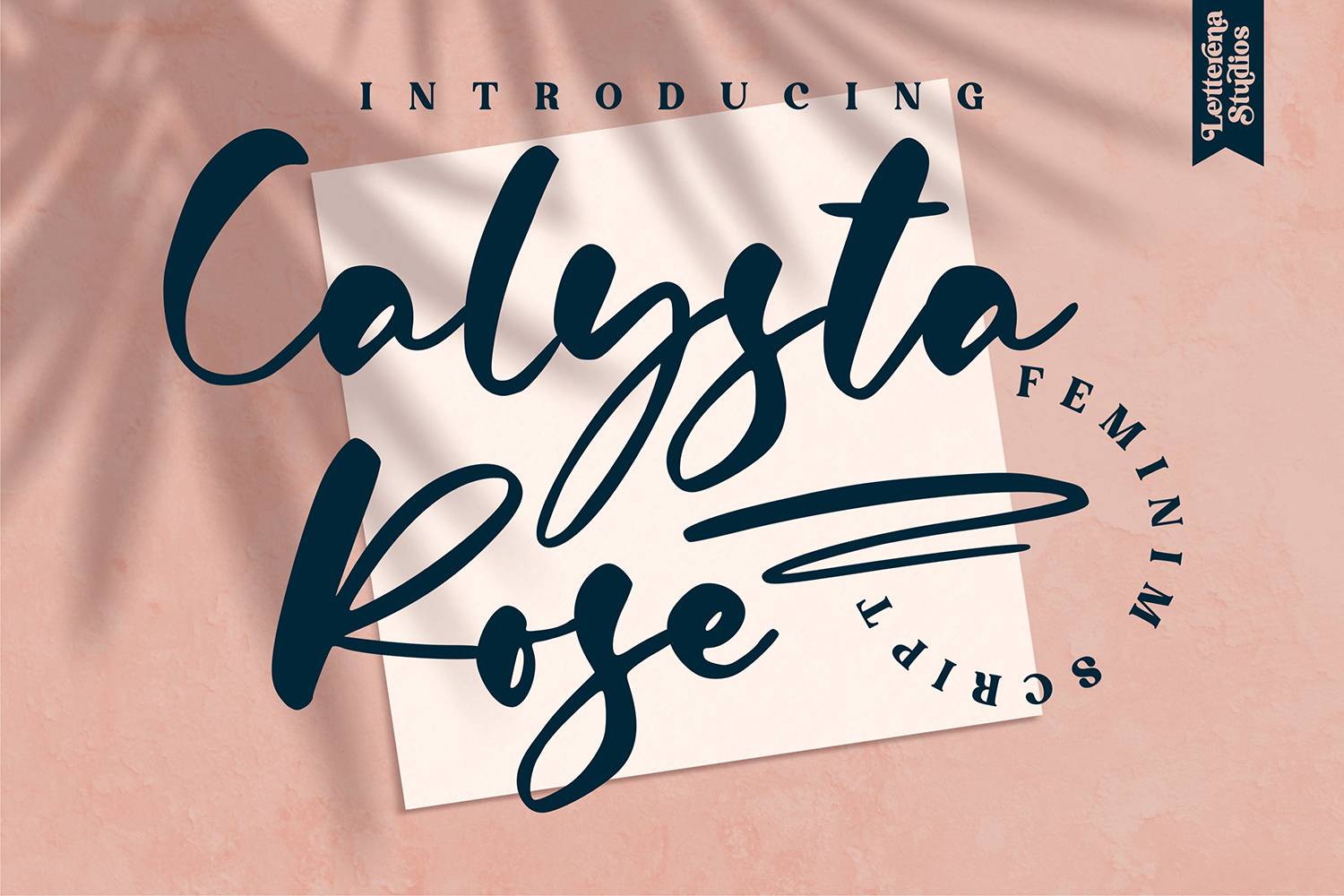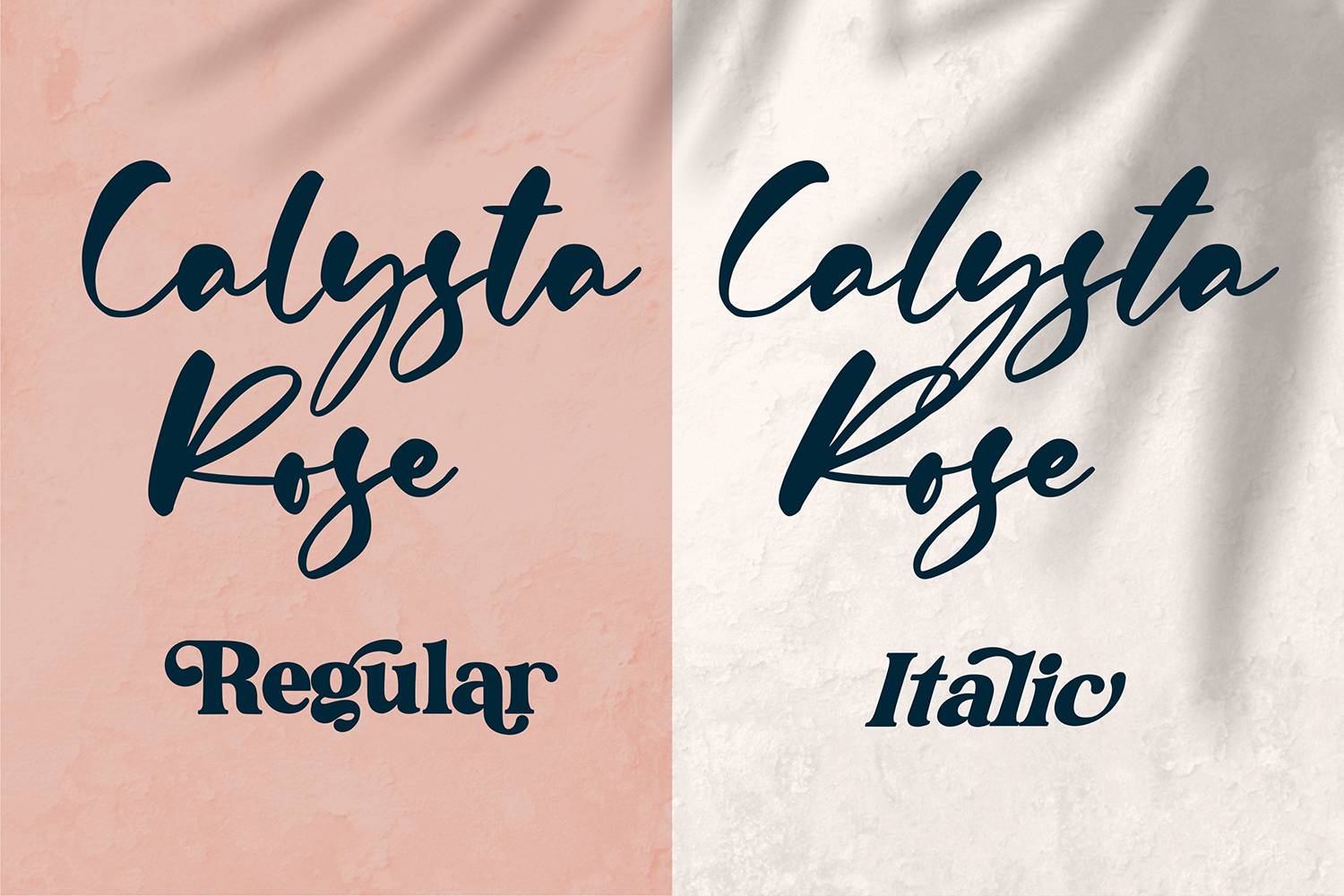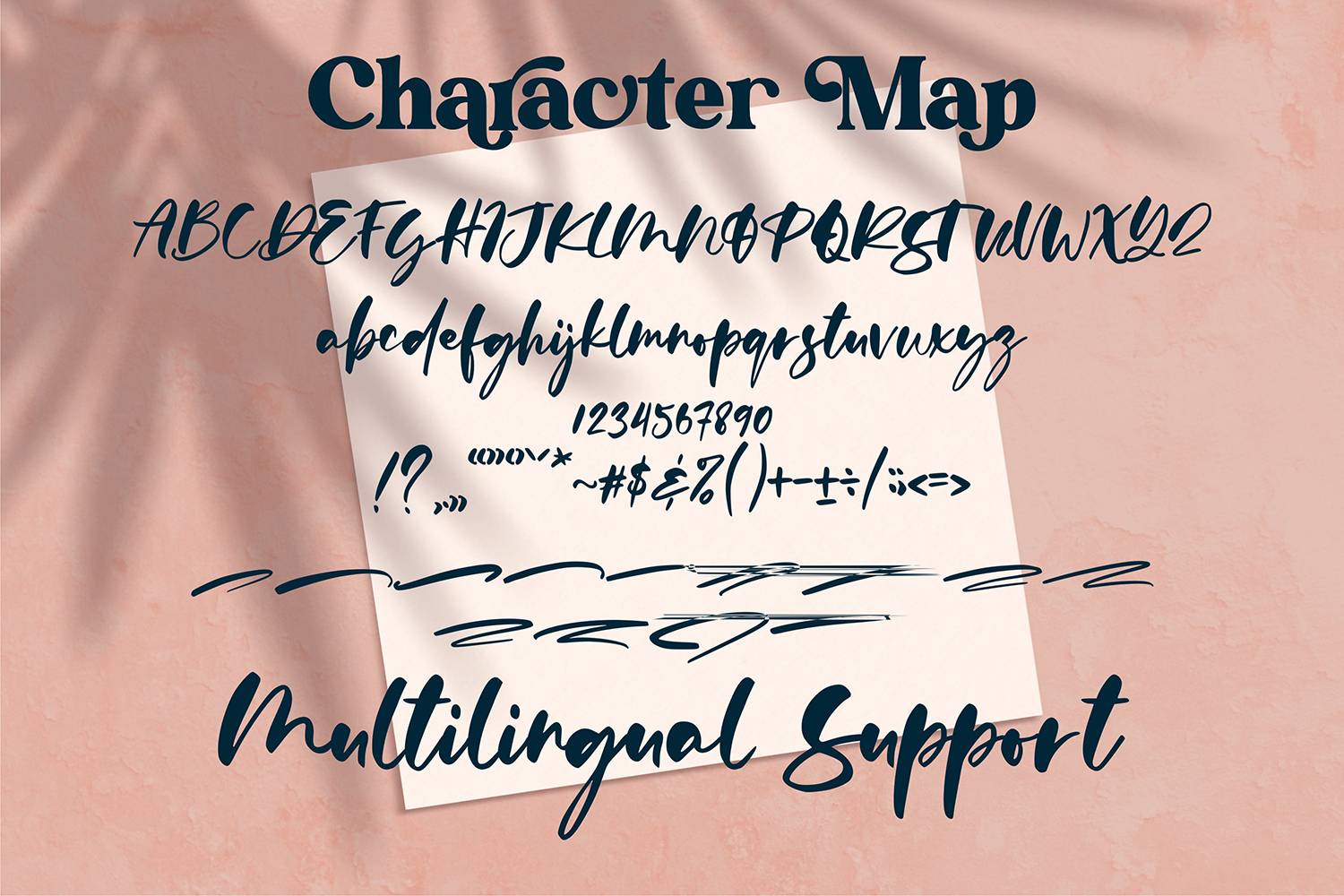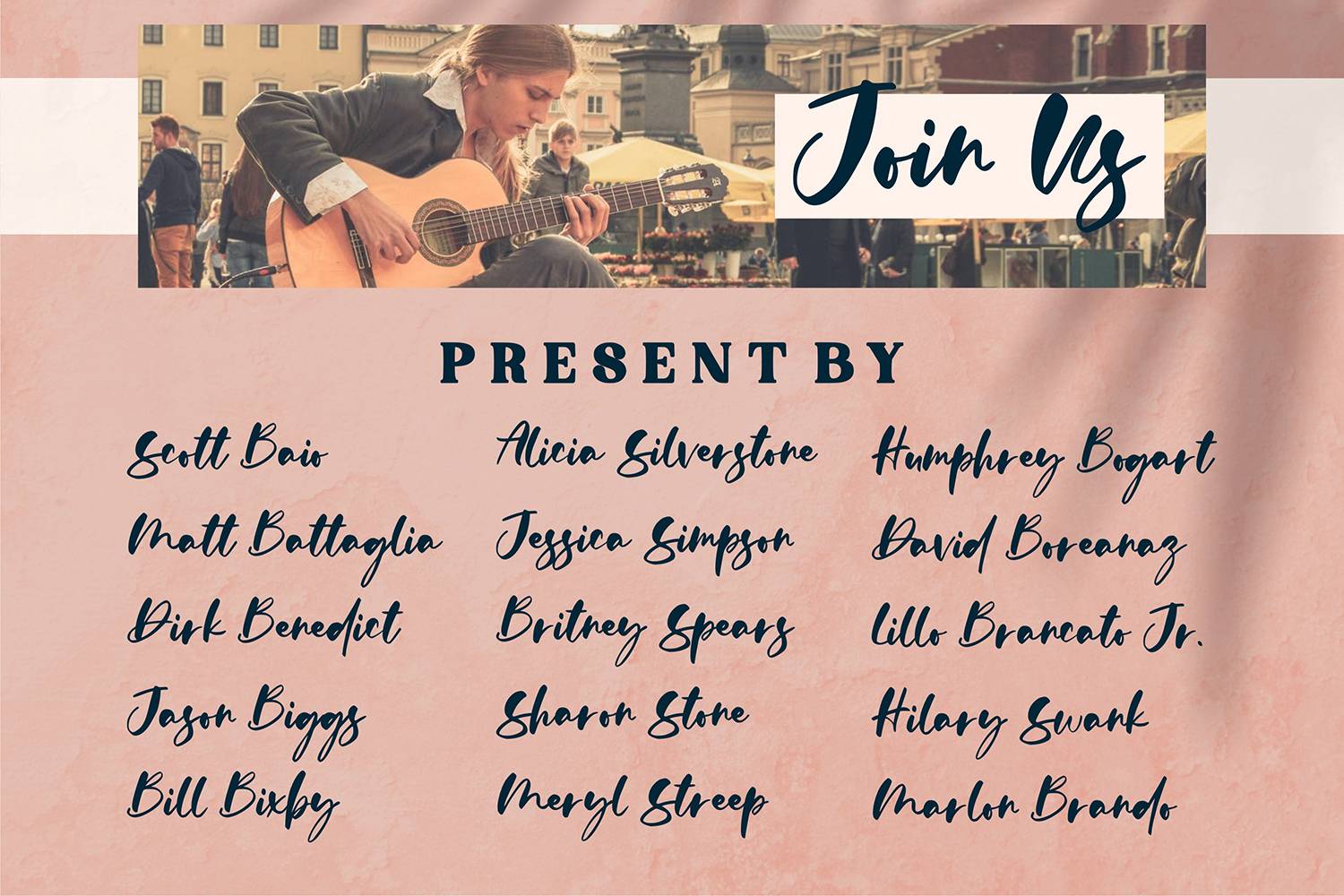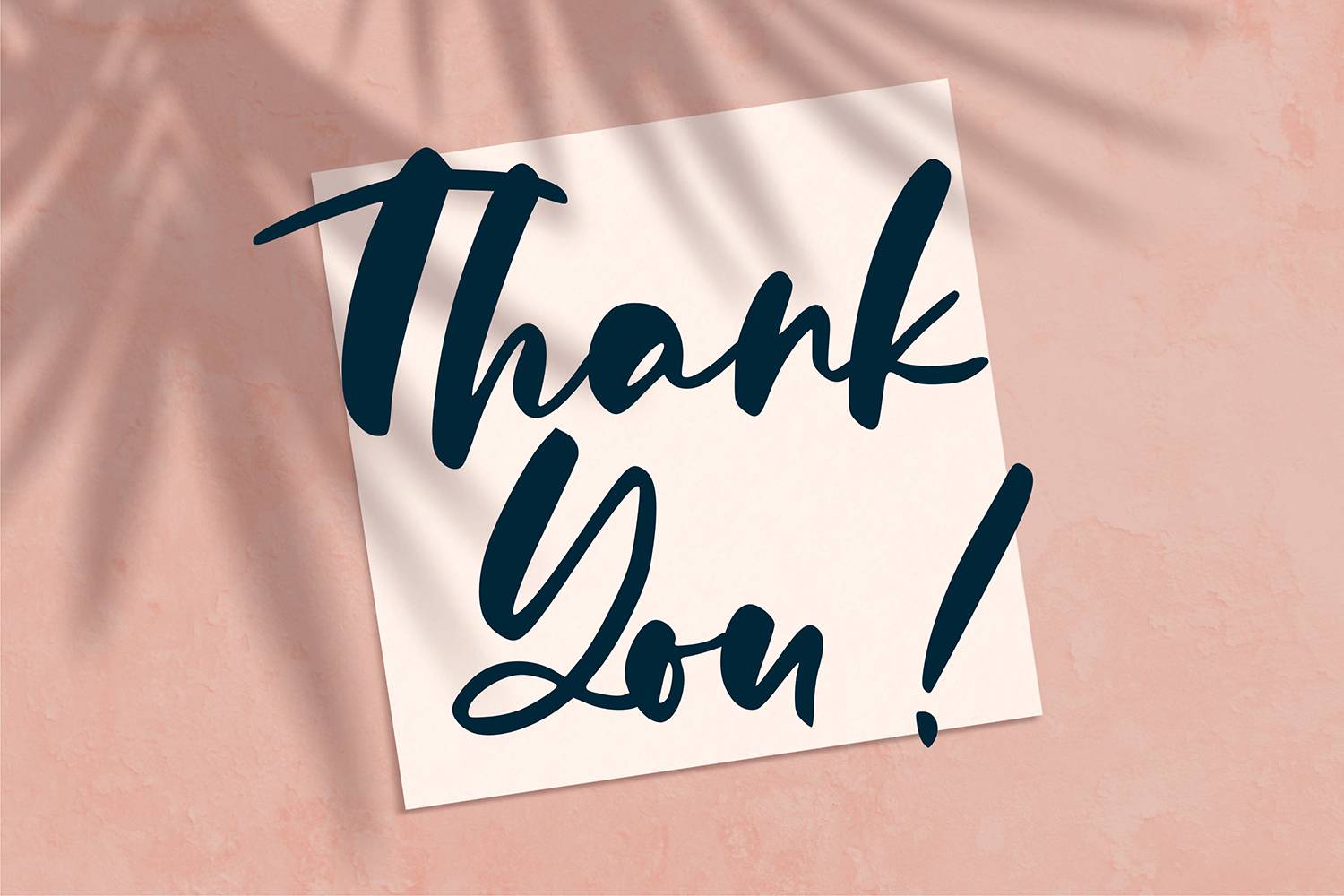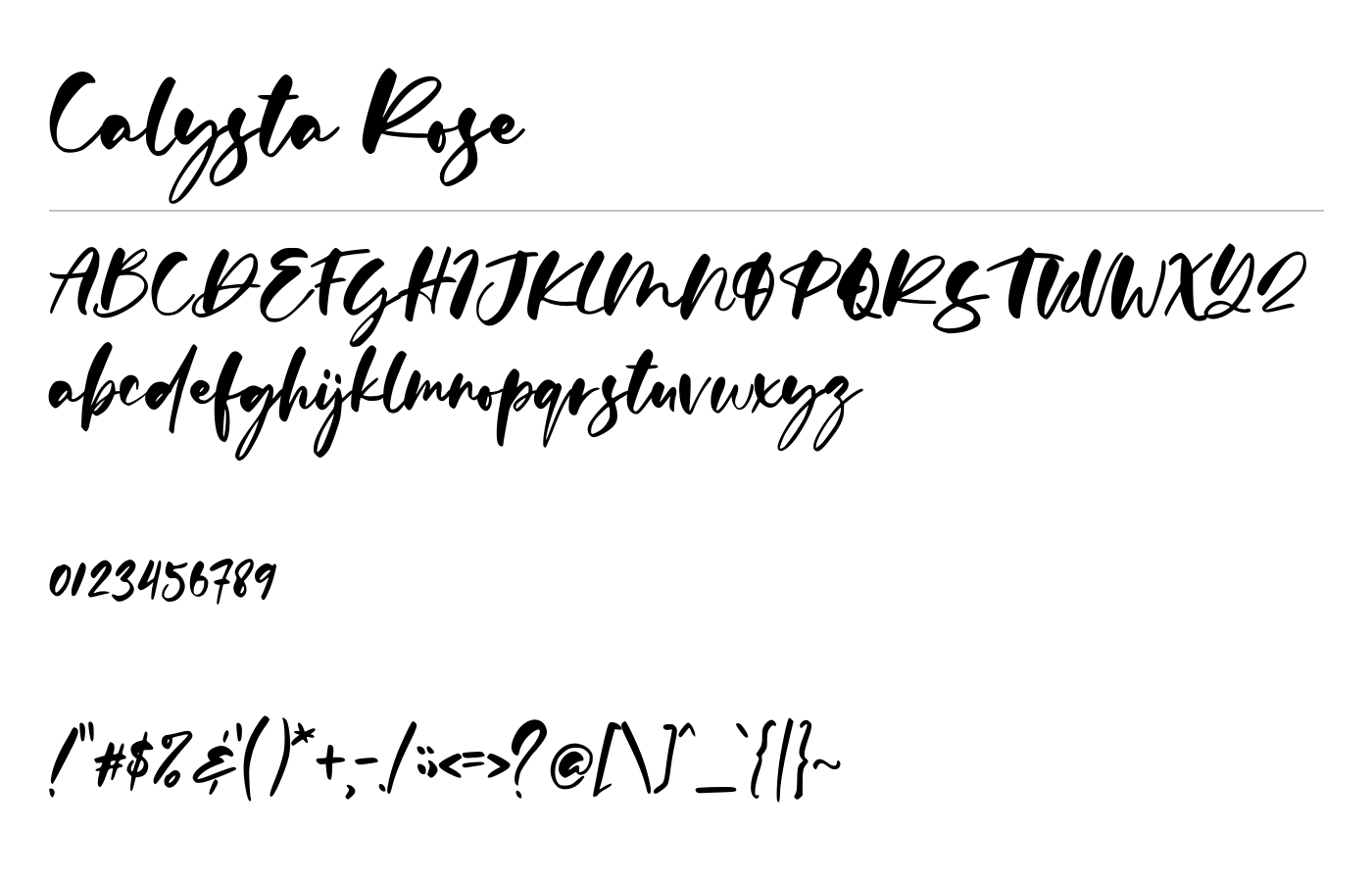
Calysta Rose is a lively and elegant script font with a handwritten, brush-style feel that combines casual charm with polished sophistication. Its fluid, moderately thick strokes and dynamic letterforms make it perfect for adding a personal yet stylish touch to branding, invitations, and logos, especially in creative and fashion-forward designs. This font shines in display uses, where its unique character and warmth can truly stand out.
Calysta Rose Font
About Calysta Rose Font
| Font family | Calysta Rose Font |